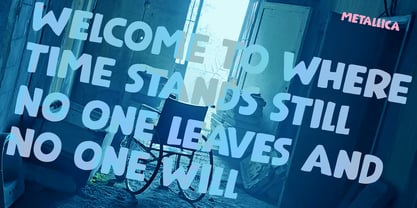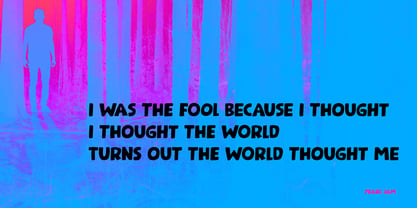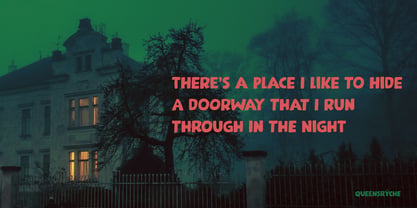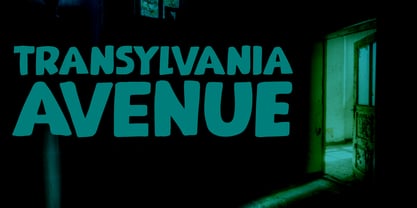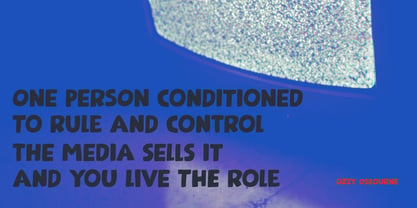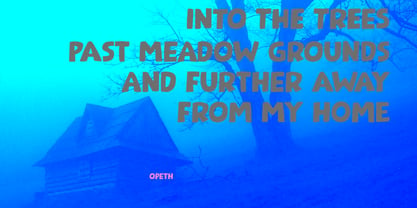
Transylvania Avenue Pro
by Hanoded
The Transylvania Avenue Pro Font Family was designed by David Kerkhoff and published by Hanoded. Transylvania Avenue Pro contains 2 styles and family package options. More about this family
Transylvania Avenue is a really loud, bombastic font. The name implies it has a bit of horror in it, but who needs spooky fiction when reality is scarier?
Transylvania Avenue comes with all the accents that make languages and other cultures so intriguing. It also has a full set of auto-rotating alternates, in case you need a change of cookie cutter texts and endless monologues.
Hanoded is run by Dutchman David Kerkhoff. His fonts are a mishmash of styles, as he just creates whatever pops into his head. You will find a lot of brush fonts in his collection, as his favourite tools are brushes and Chinese ink, with cartoon style fonts and script fonts complementing his repertoire. Aside from making fonts, David occasionally guides tours in far-flung places, renovates his '30's house and tries reasoning with his wife and (teenage) kids. Not an easy task!